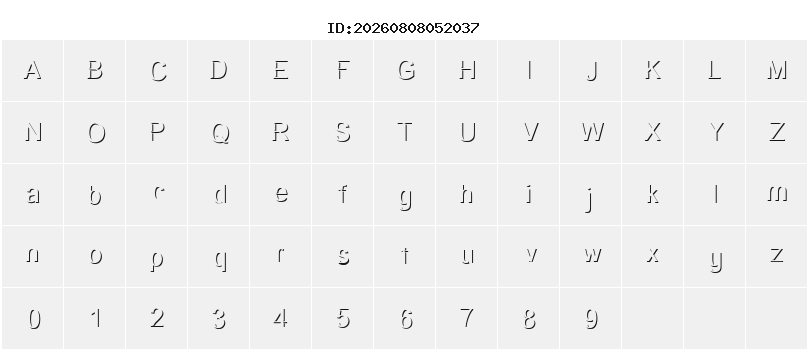
• Font Name: Primary Elector Platinum
• Font ID: Primary Elector Platinum
• Full Font Name: Primary Elector Platinum
• PostScript Name: PrimaryElectorPlatinum
• Designer: Graham Meade
About Primary Elector Platinum.ttf
Primary Elector Platinum.ttf is a modern, elegant sans-serif font designed for ultimate readability and visual harmony. Perfect for branding, headlines, web design, and print materials.